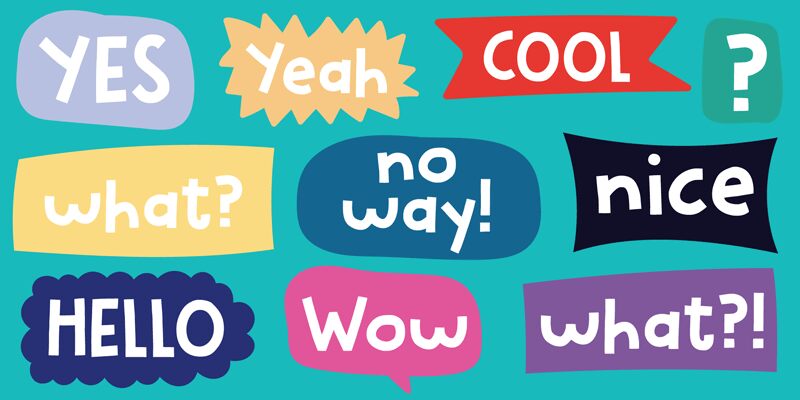
Regulaire, a captivating display font designed by Pizzadude, adds a playful touch to any project.
With its charming cartoon style, this font is perfect for children's books, animated videos, and whimsical illustrations. The Regulaire font infuses life into logos and branding materials for toy stores or amusement parks. Its bold yet friendly letterforms make it an ideal choice for eye-catching signage in family-oriented businesses.
Whether used in packaging designs or website headers, Regulaire brings joy and creativity to any project that seeks a touch of imaginative fun.